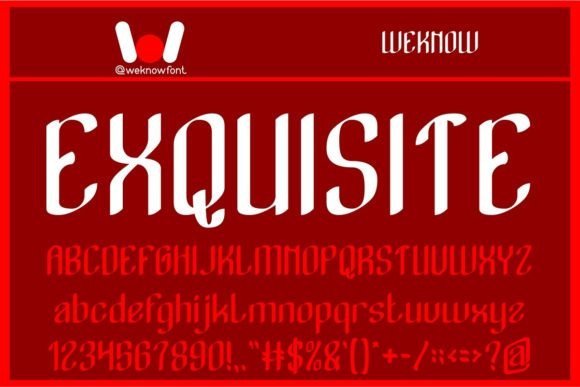
Unlock Your Creativity with Exquisite Font
Do you ever find yourself stuck in a creative rut, staring at a blank page or screen, waiting for inspiration to strike? You’re not alone. We’ve all been there at some point or another, searching for that spark that will bring our ideas to life. For designers, this can be especially challenging, as the pressure to create something visually stunning and impactful can be overwhelming. But what if you had the perfect tool to help you break through that creative block and take your designs to the next level?
Enter Exquisite Font, a modern and fancy display font designed to enhance your project ideas and take your creativity to new heights. With its unique style of characters, Exquisite Font is the perfect addition to any designer’s toolkit, offering a level of sophistication and elegance that’s sure to impress. Whether you’re working on a high-end branding project or a bespoke wedding invitation, Exquisite Font is the perfect choice to make your designs truly stand out.
Key Features of Exquisite Font
- Unique Characteristics: The font features a unique blend of modern and vintage elements, with intricate details and subtle flourishes that add a touch of elegance to any design.
Exquisite Font Review
First off, I was blown away by the ✨ ligatures in Exquisite Font. The way they flow together is truly beautiful, and adds a level of sophistication to any design. The font’s ✨ humanist feel also makes it perfect for creating a warm and inviting atmosphere.
The ✨ font weights available in Exquisite Font are also a highlight. The range of weights and styles makes it easy to create a cohesive look across different design elements, from headings to body text.
However, I did encounter some limitations with Exquisite Font. ⚠️ Character set limitations are a concern, as the font may not support all the characters and languages you need. Additionally, ⚠️ legibility issues can arise when using the font at very small sizes.
Here are some specific things that didn’t quite work for me:
- ⚠️ Font size limitations can make it difficult to use the font in certain contexts.
- ⚠️ Line spacing issues can make the text feel cramped or hard to read.
Overall, I would say that Exquisite Font is a solid choice for designers looking to add some elegance and sophistication to their work. However, it may not be the best fit for every project, especially those requiring extensive character sets or very small font sizes.
Exquisite Font is ideal for creating elegant and sophisticated designs, such as:
- Book covers and interior design